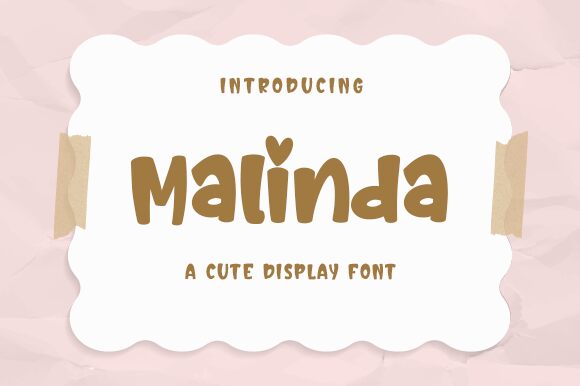
Malinda
Malinda, the bold and playful display font designed by Nirmala Creative, is perfect for projects that require a touch of whimsy and fun. With its cartoon-inspired style, Malinda is suitable for children's books, comics, logos, packaging design, and more. This typeface features thick strokes and exaggerated curves that make it stand out from other fonts. Its bold weight ensures that your message will be seen loud and clear. Whether you're creating a poster or designing a website, Malinda's unique style will captivate your audience and add a touch of magic to your project.